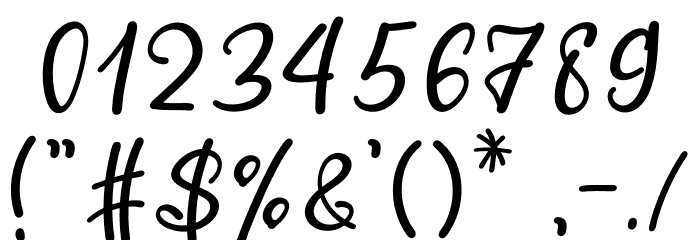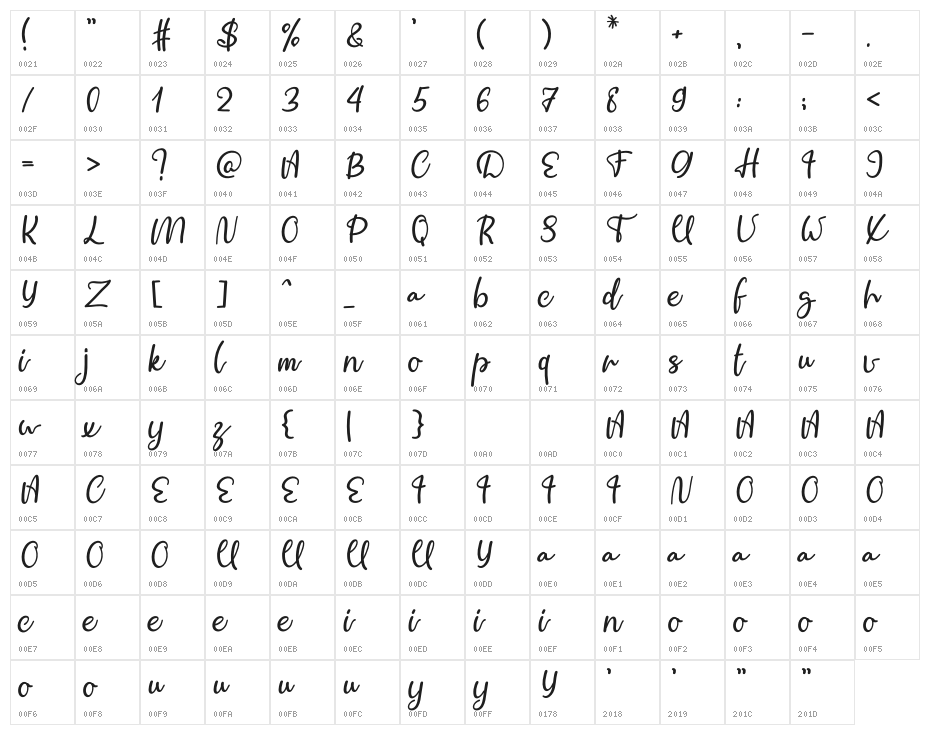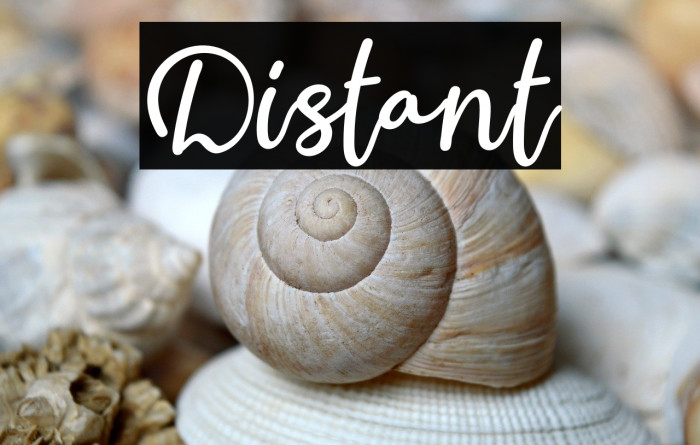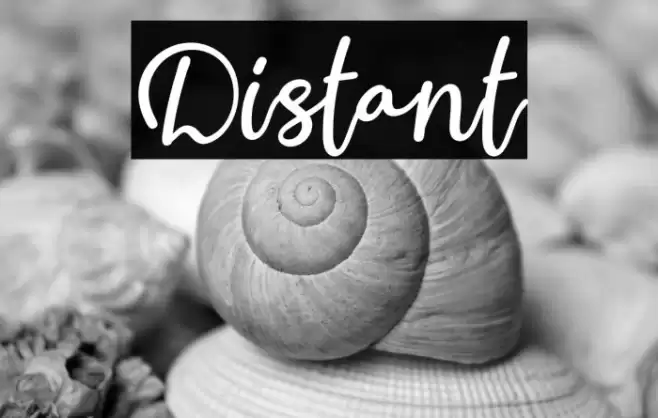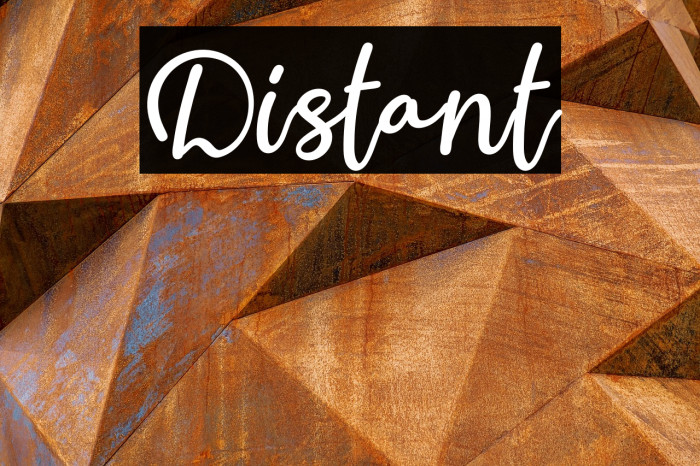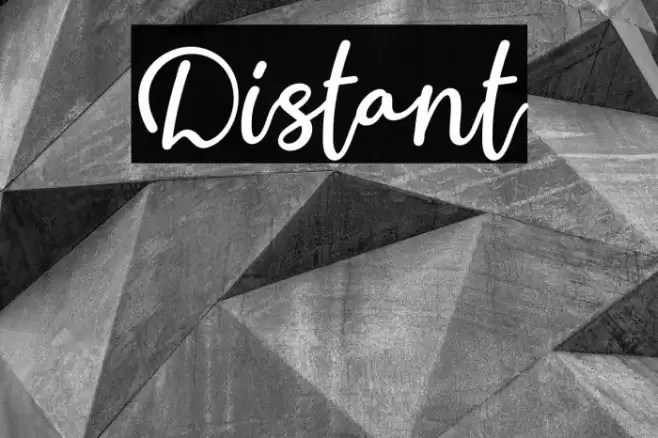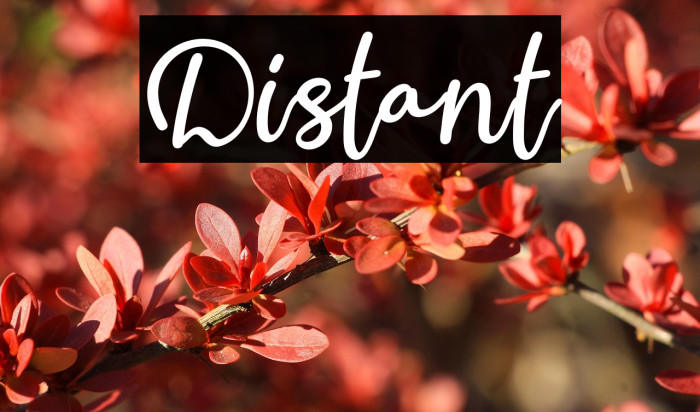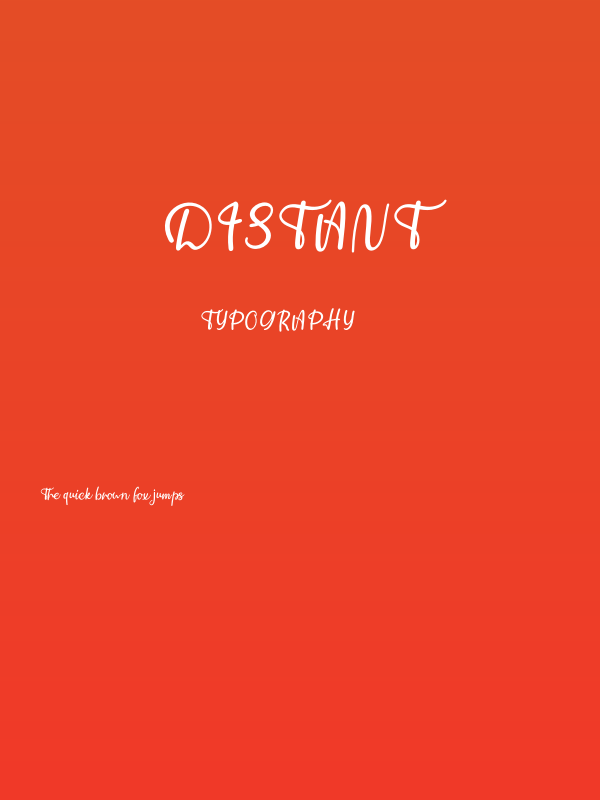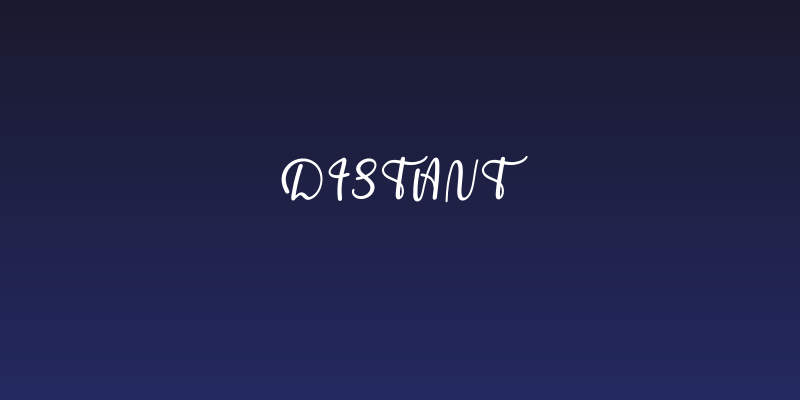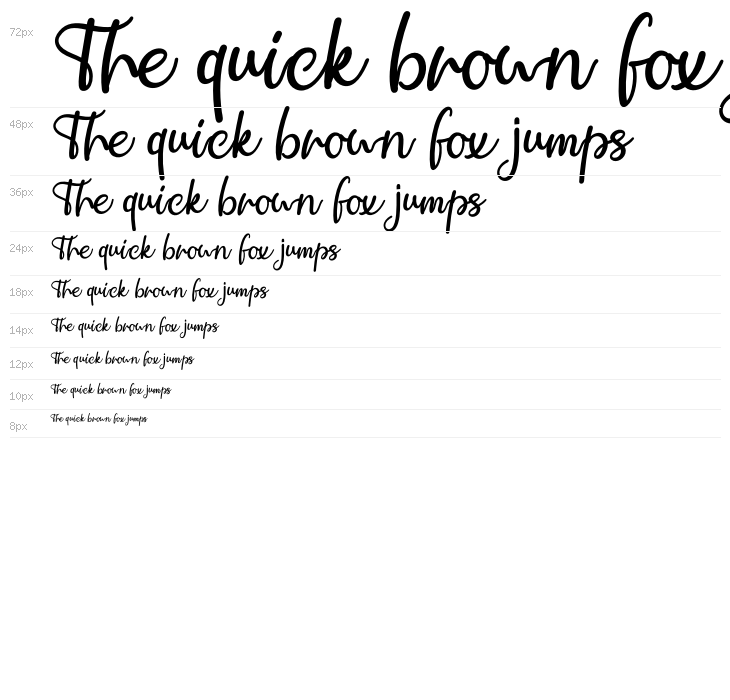
Distant Font
Distant Description
This font features a lively and energetic handwritten style, characterized by its fluid and continuous strokes. The uppercase letters are bold and slightly slanted, giving a sense of movement and dynamism. The lowercase letters maintain a consistent flow, with some letters like 'g' and 'j' having distinctive loops that add to the playful nature of the font. Numbers are clear and legible, with a slight tilt that matches the overall style. Special characters are well-integrated, maintaining the same handwritten aesthetic. This font exudes a casual and friendly vibe, making it suitable for creative and informal projects.